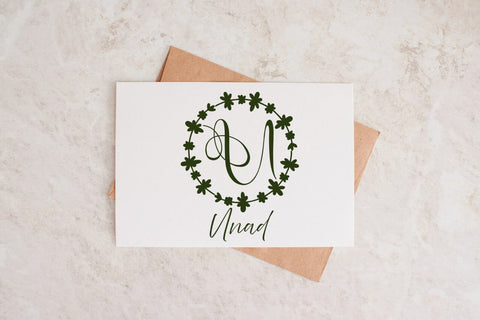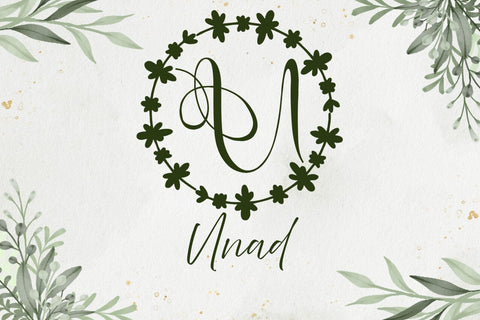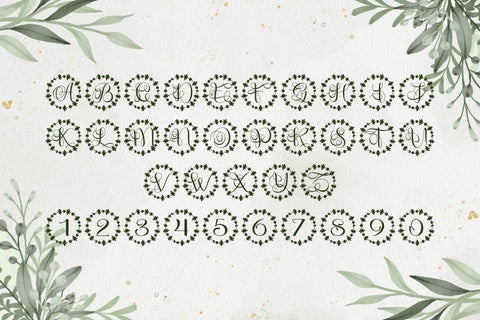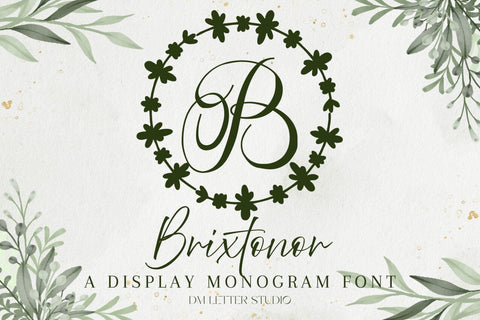
Brixtonor Monogram Font
Meet Brixtonor, the Monogram Font
Brixtonor Monogram Font turns simple initials into bold, boutique-ready emblems. Strokes feel smooth and confident, while open counters keep tiny tags readable and thumbnails crisp. Use it for wedding suites, boutique logos, keepsake gifts, foil seals, and premium packaging. In addition, Brixtonor pairs beautifully with refined serifs and quiet humanist sans fonts, so layouts stay polished without extra work.
Where this monogram font shines
Set single, double, or triple initials for logos, seals, menus, and place cards. Then frame them with laurel rings, ovals, rope circles, or fine rules to echo the balanced geometry. Since proportions favor symmetry and clear spacing, centered compositions come together in minutes. As a result, your listings look consistent across invitations, signage, boxes, and tags, while the mark scales smoothly from jewelry cards to entry displays.
Design tips for Brixtonor Monogram
Keep initials large and let white space breathe. Pair the hero monogram with a soft serif for body text or a clean sans for dates and labels. Add micro shadows, a thin inner stroke, or a delicate frame for depth. Because the forms are airy and refined, textured papers and metallic accents raise perceived value. However, keep wording short so the monogram remains the hero—especially on favors, tags, and wax seals.
Select stylistic alternates for key letters
Curves tuned for foil, letterpress, engraving, laser cutting, and clean vinyl paths
Why creators choose Brixtonor
You want elegance that reads at a glance and sells across many product types. Then, brixtonor Monogram Font delivers steady clarity, quick layout, and a cohesive brand voice from invites to packaging and gifts.